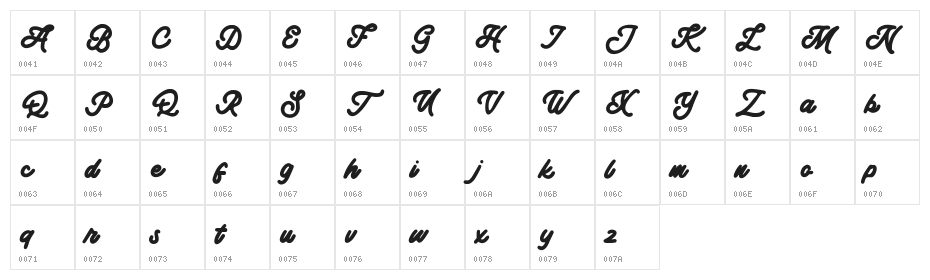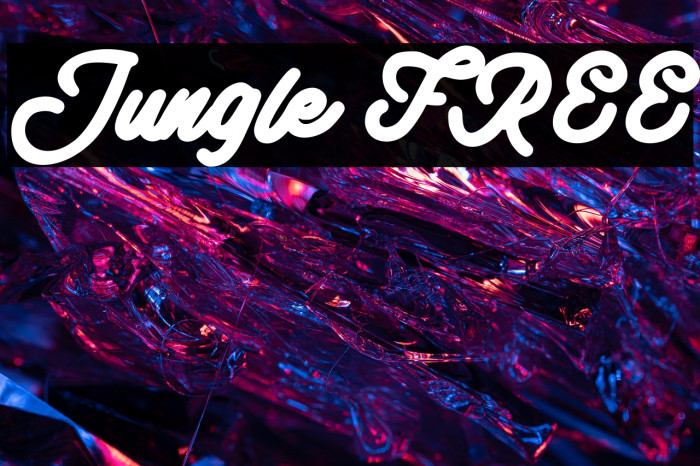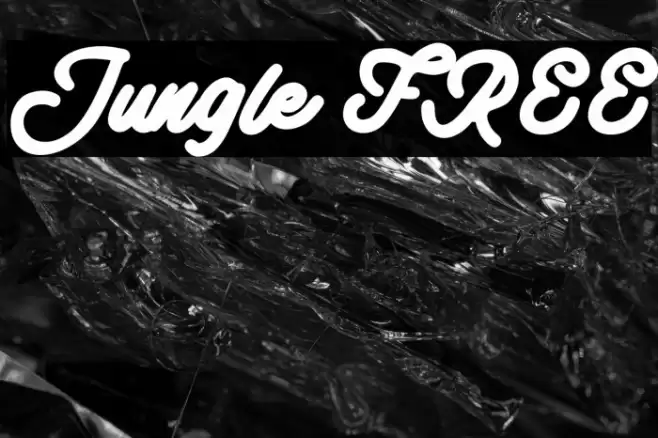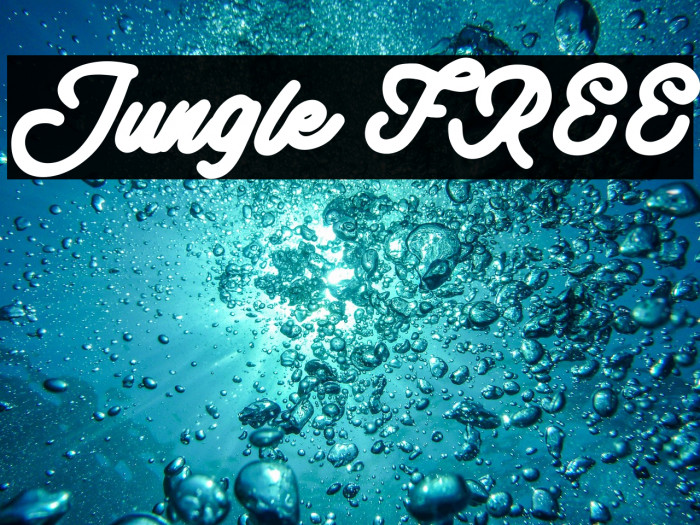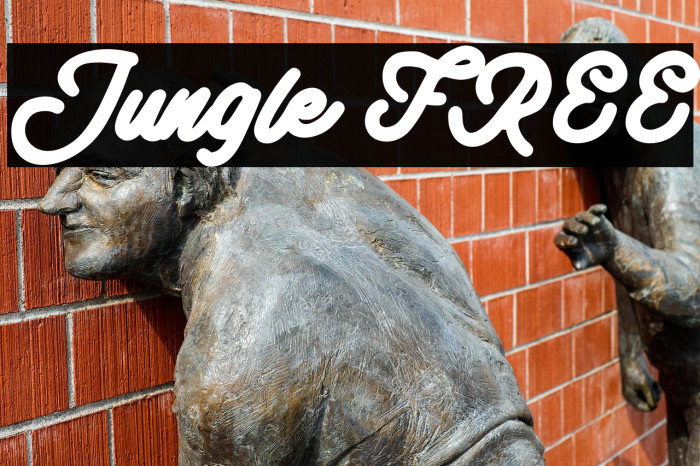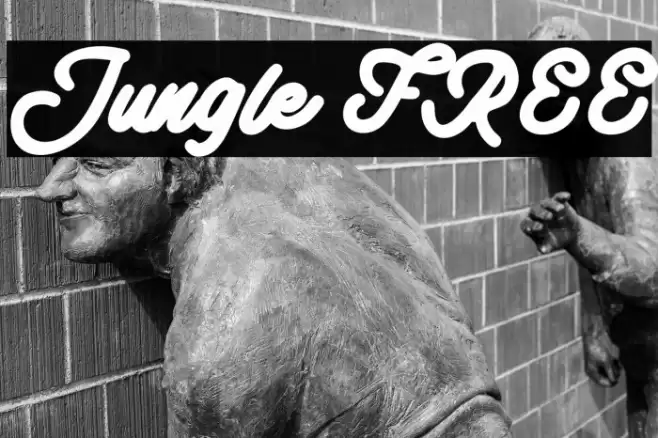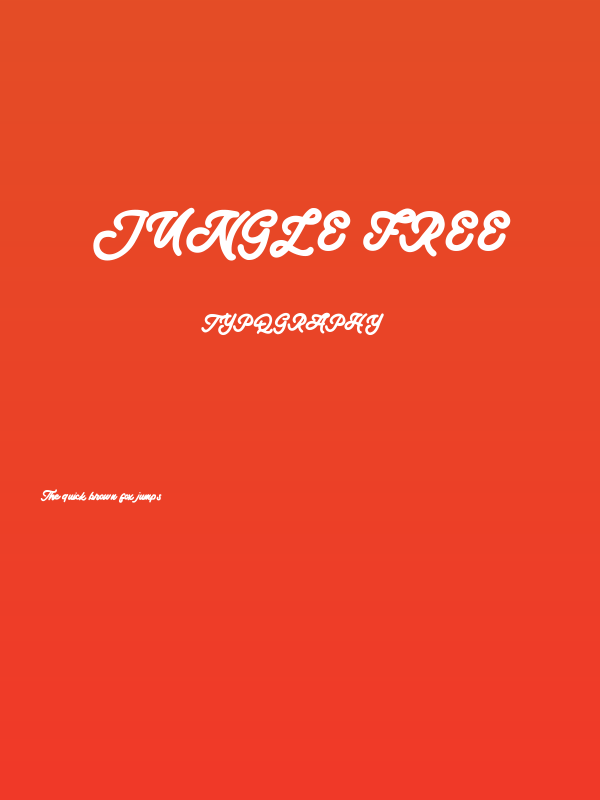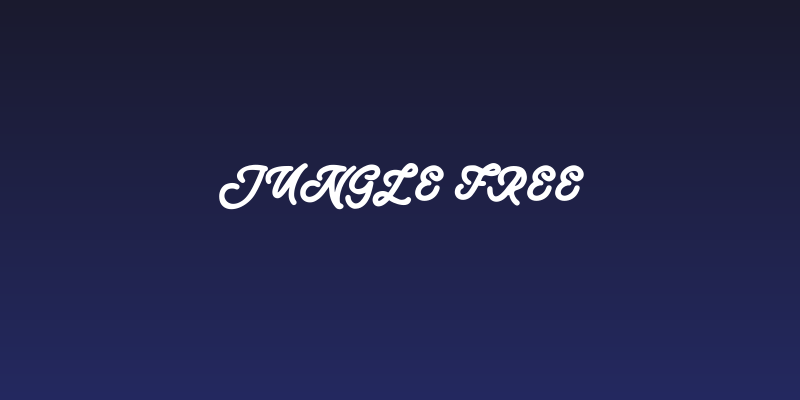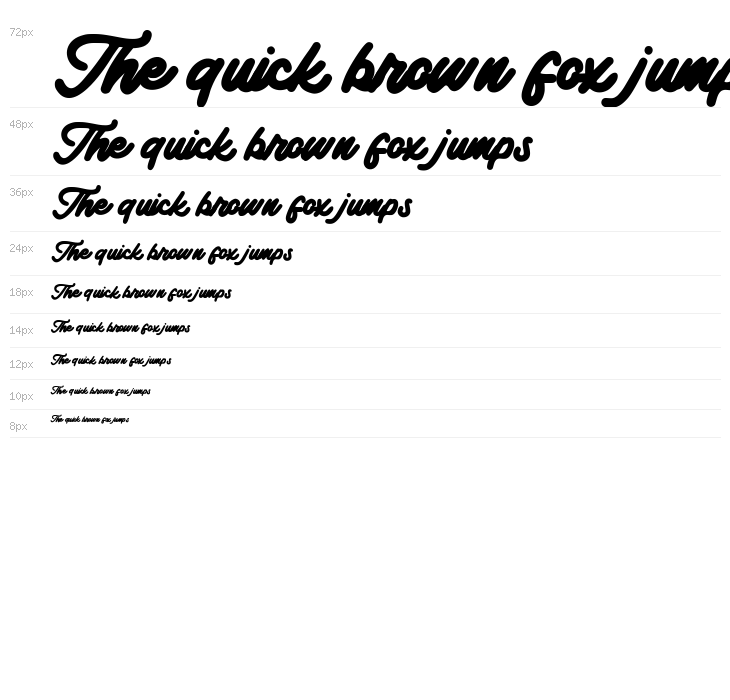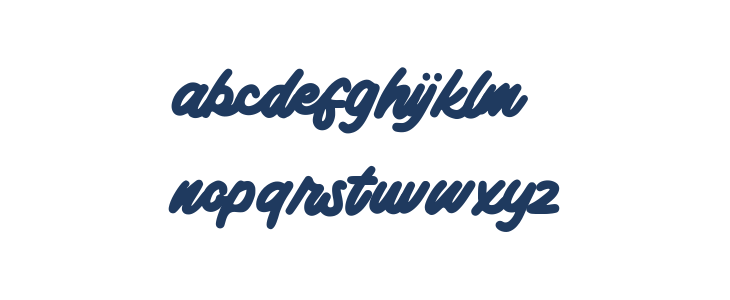
Jungle FREE Font
Jungle FREE Description
This font features a bold, cursive style with a playful and dynamic appearance. The characters are interconnected, creating a flowing script that mimics handwriting. The uppercase letters are slightly larger and more ornate, while the lowercase letters maintain a consistent height and style. The font includes a full set of uppercase and lowercase letters, numbers, and a selection of special characters. The strokes are thick and rounded, contributing to a friendly and approachable look. The overall design is reminiscent of vintage signage or retro branding, making it suitable for projects that require a touch of nostalgia or whimsy.